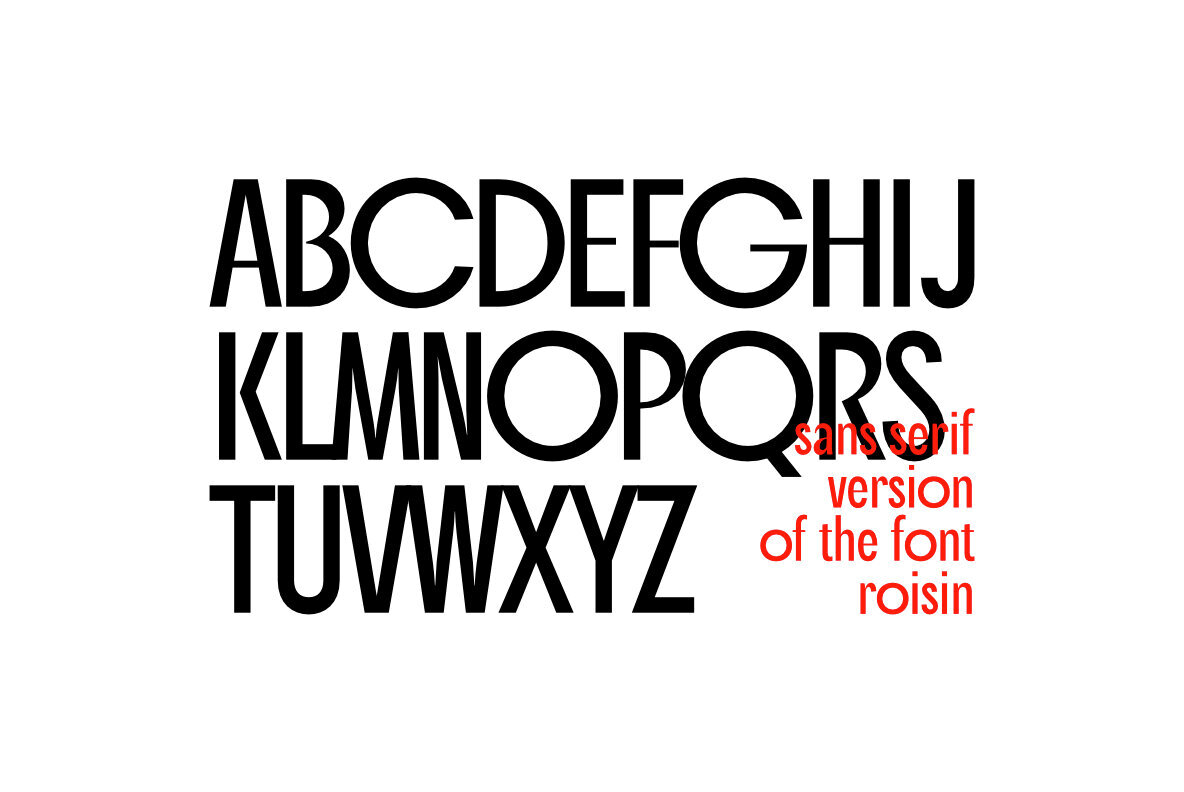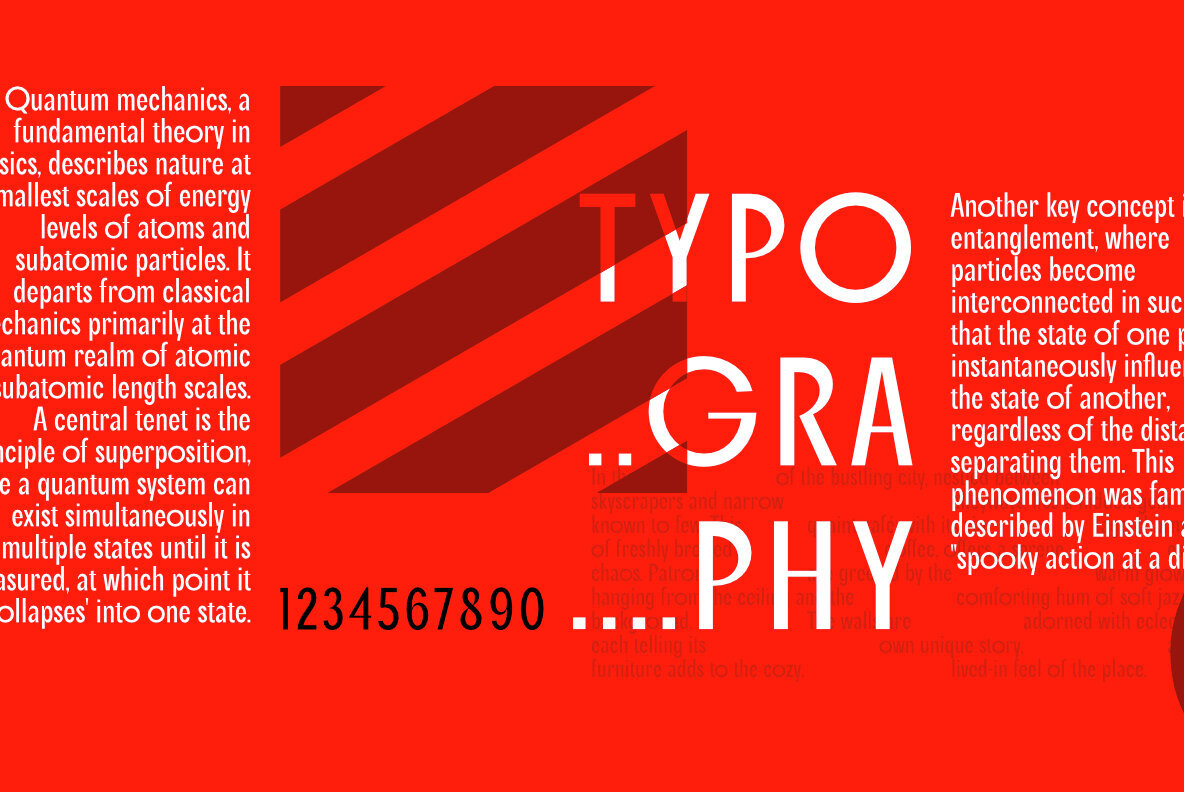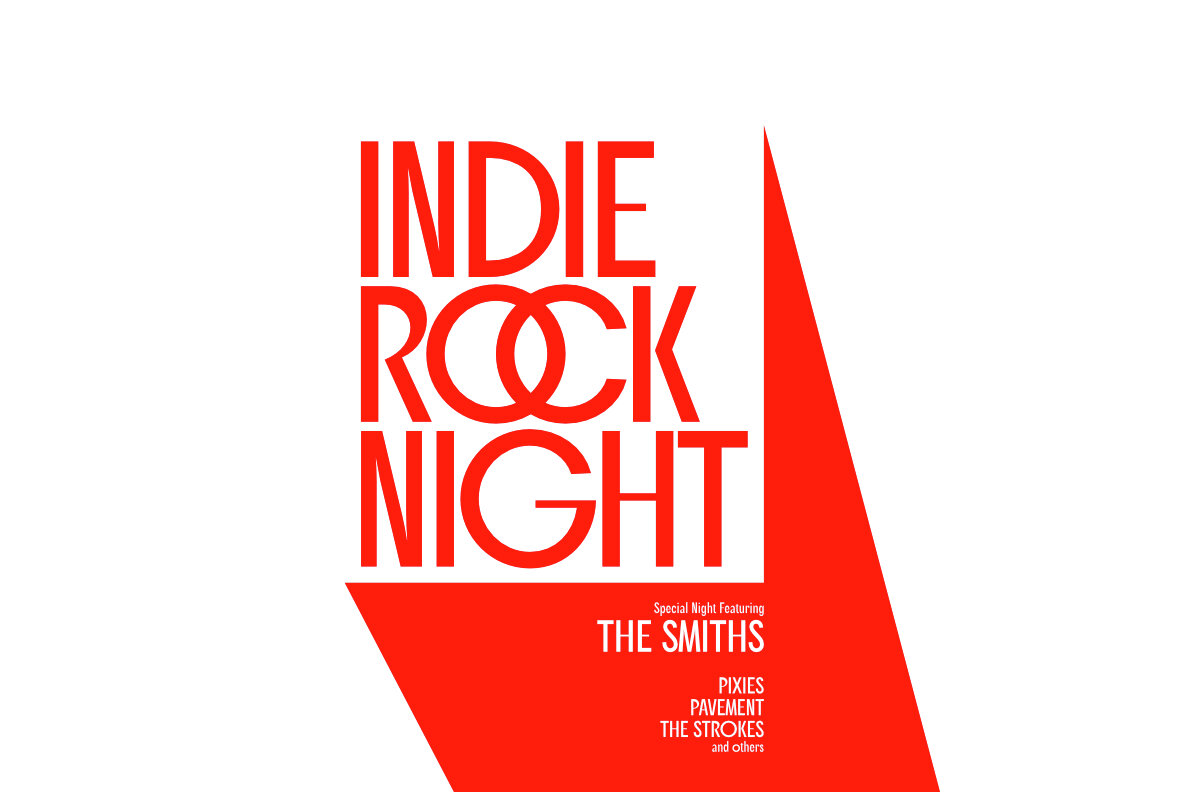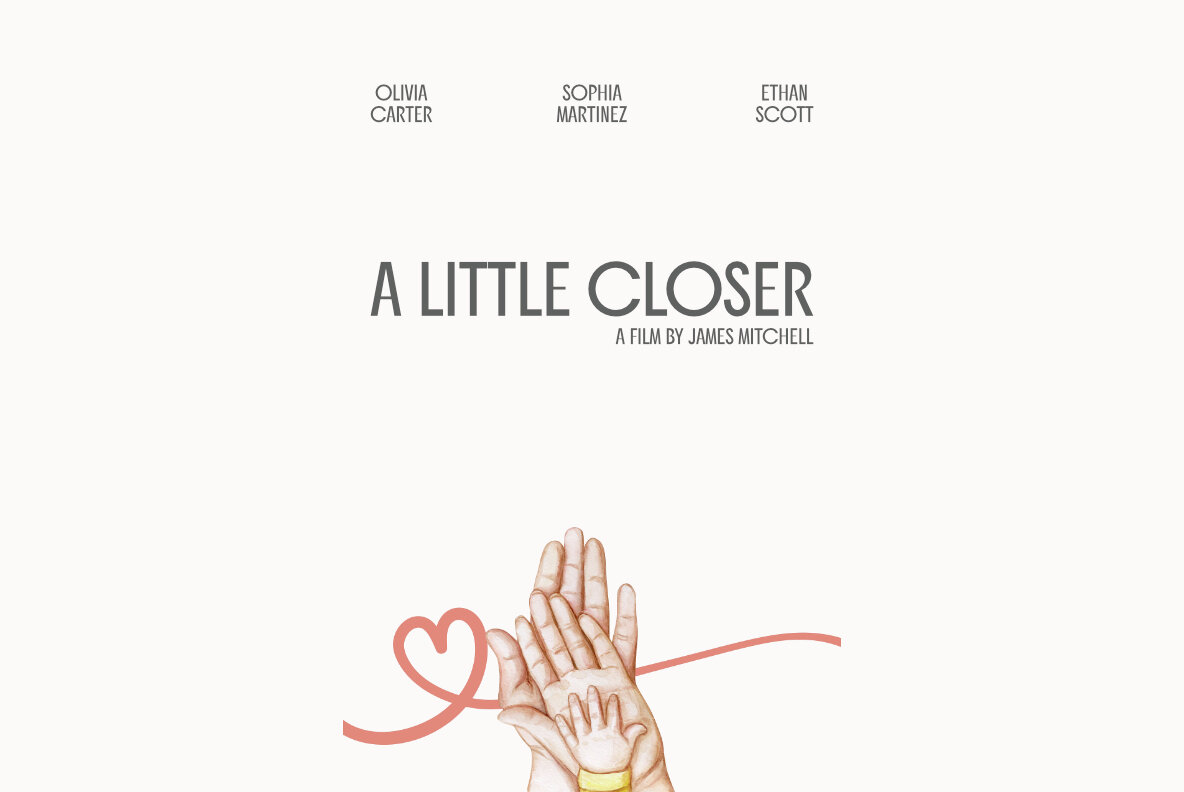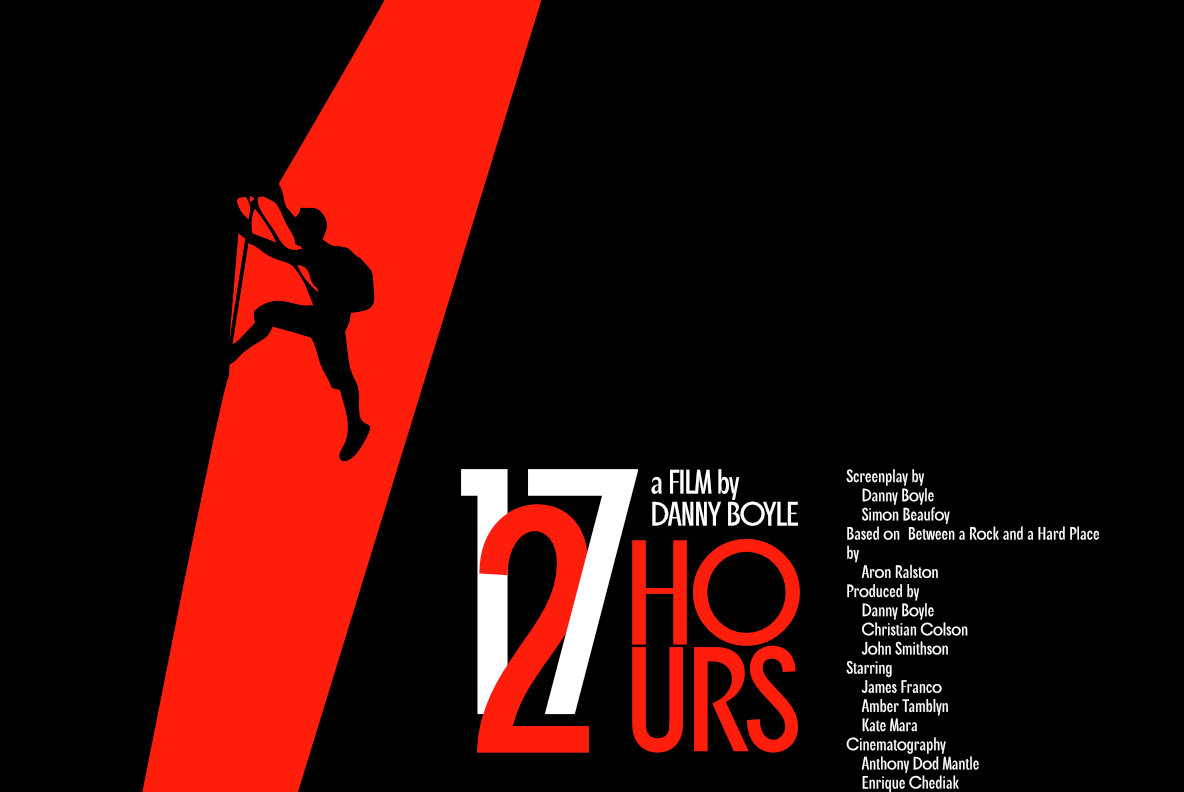
Roisin Sans Font
Roisin Sans Regular
Roisin Sans is the sans serif version of the font Roisin, a striking sans serif typeface that masterfully blends the sleekness of condensed letterforms with the smooth curves of wide circular figures. This elegant combination results in a font that balances modernity, readability, and versatility. Roisin Sans showcases refined letterforms that merge minimalist design elements with a contemporary flair, making it ideal for a diverse array of projects. From web design and digital interfaces to branding materials and editorial layouts, Roisin Sans infuses a touch of sophistication and charm into every application.